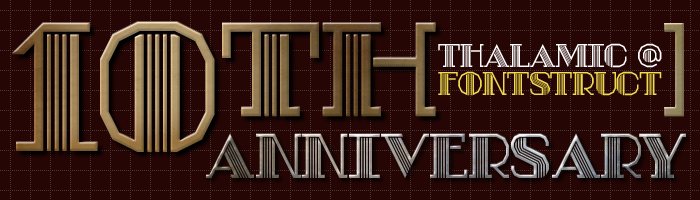
tm 10th Anniversary
Ten years ago, a StumbleUpon Fontstruct on April 8, 2008 has been one of the highlights of my life. Few things have provided so much joy and fewer things have kept my interest for so long. Type design has always been a fascination for me and the simplicity of the UI/UX of fontstruct has allowed me to explore all that I can imagine without getting in the way while letting me do as I please for the most part. In times of creativity, fontstruct was there to let it flow, and in times of personal lows, fontstruct was there to allow me to ignore that which was beyond my control. Furthermore, the overall civility and helpful nature of the fontstruct community is still one of the best on the internet. I have been using the fontstruct website almost daily for 10 years now and rarely do I not see something new that is amazing and awe inspiring. The creativity of the designers past and present is incredible.
can u make a sans version of it? i like this a lot, but i'm curious about how would it look in sans.
love the B and R :)
A beautiful tribute, I especially like the O and Q with the thick part in the middle.
@thalamic - Congratulations on the well-deserved Top Pick, Thalamic.  This Art-Deco design truly is a wonderful tribute to FontStruct and its ever-growing community.
Beautiful!
What a tribute!
An attractive Art Deco design, the 'curved lines' with a more angled look fit the architectural look of the "filler unit" i.e. the set of lines perfectly. I understand perfectly what you describe in your observation regarding what FS can add to our lives ...
and the circles?